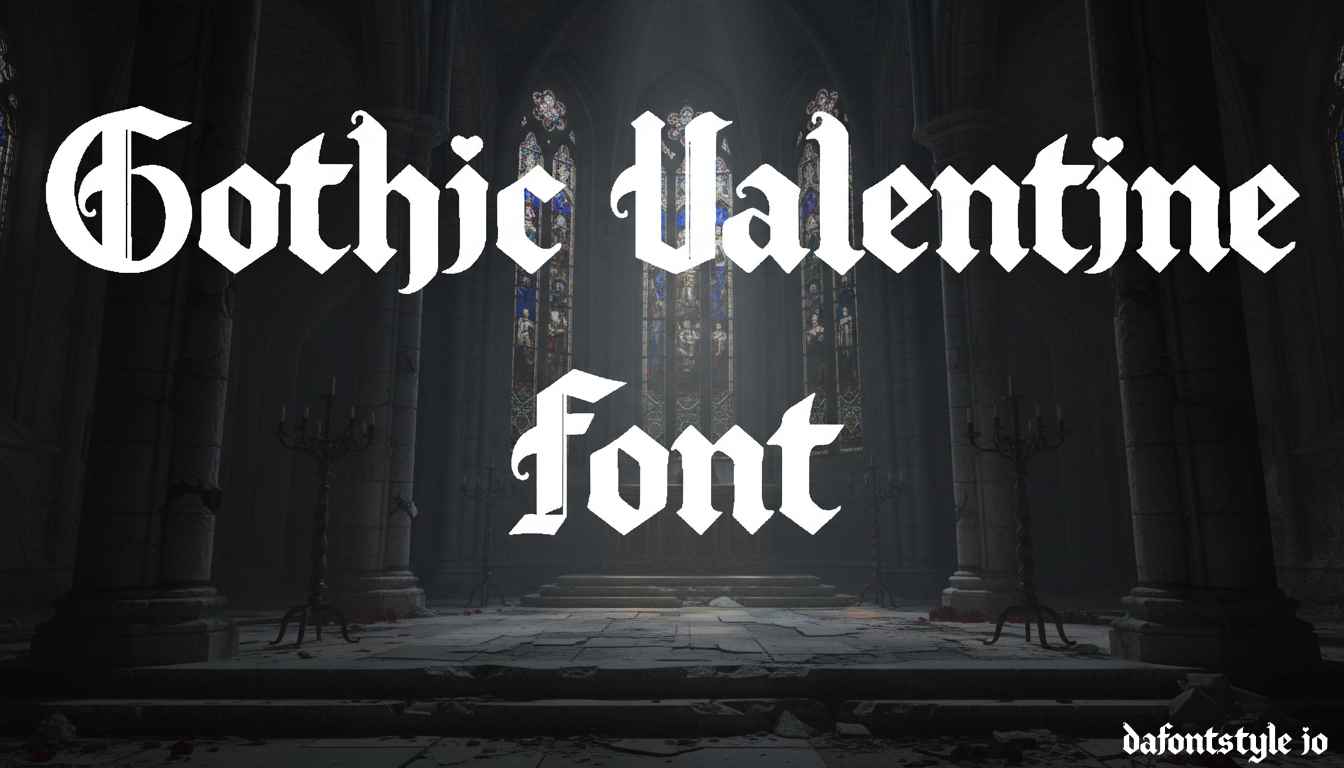
Gothic Valentine
Gothic Valentine is a gothic font designed by Kong Font (2024). Sharp, dark and dramatic, it follows the blackletter tradition of old European manuscripts. It's a free download, and you can try it with your own text in the preview above first.
- Designer: Kong Font
What You Can Type With Gothic Valentine
With complete upper and lowercase letters and all ten digits, Gothic Valentine is ready for real wording, not just a single headline. Everyday marks like &, !, ? and # are there too. Thanks to its accented letters, it also works for Spanish, French, Portuguese and Italian, not just English.
Where Gothic Valentine Works Best
Think of Gothic Valentine for tattoos, metal band logos and dark fantasy titles. Blackletter is very hard to read in all caps, so type in normal upper and lowercase.
Who designed Gothic Valentine font?
Gothic Valentine was designed by Kong Font. The copyright line inside the font is dated 2024. DafontStyle has 75 more fonts by Kong Font, and a few are linked above.
Does Gothic Valentine support accented letters?
Yes. Gothic Valentine includes the accented letters needed for Spanish, French, Portuguese and Italian, so it works for more than just English.